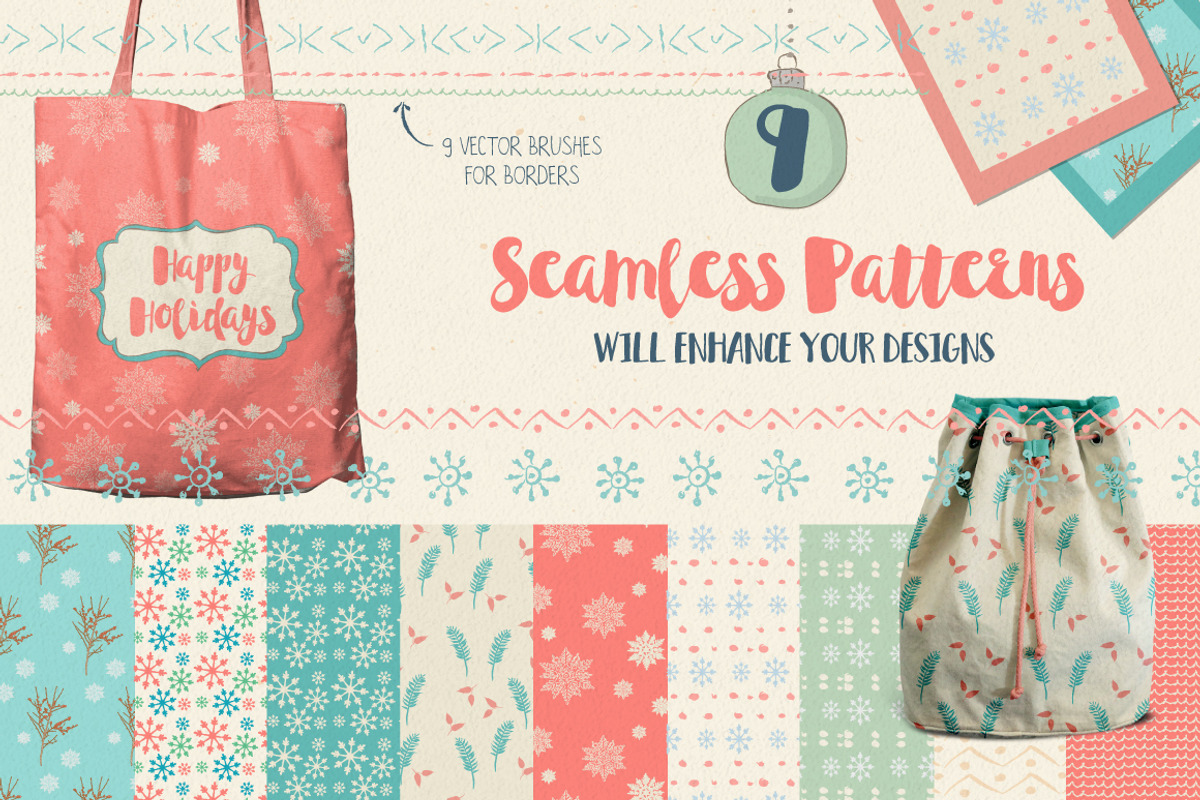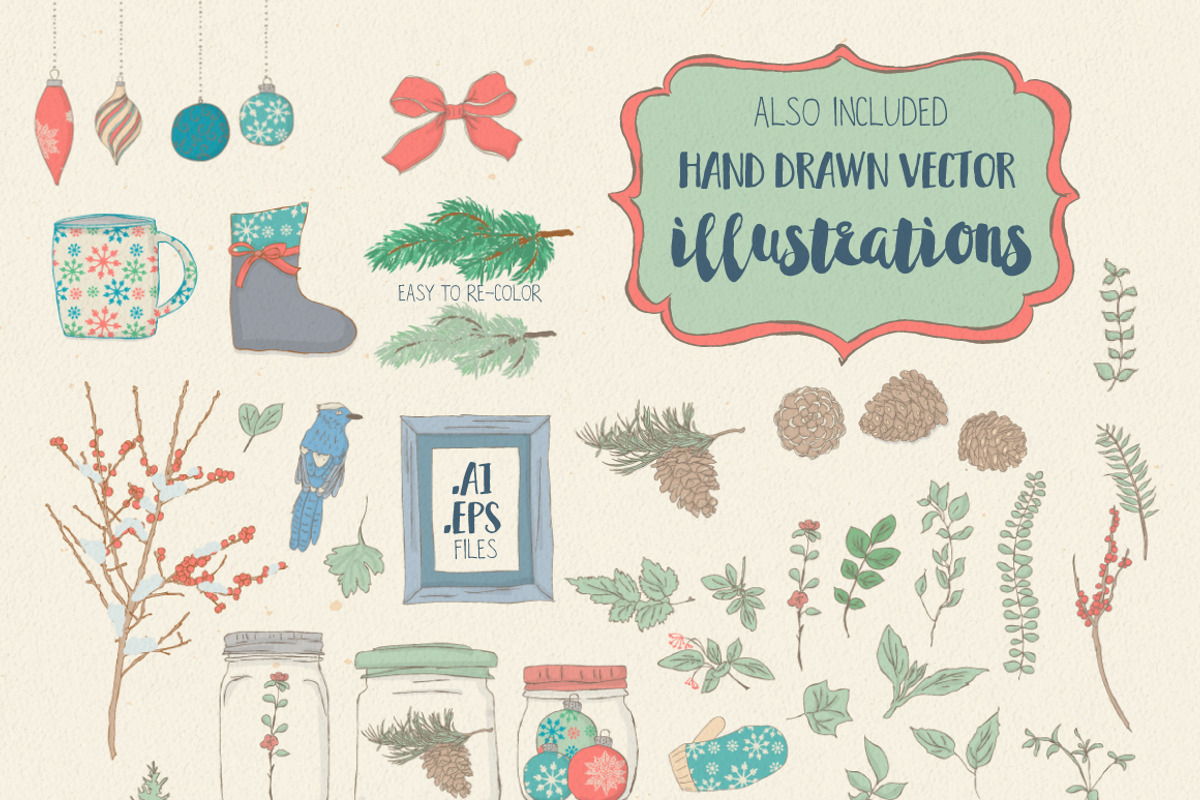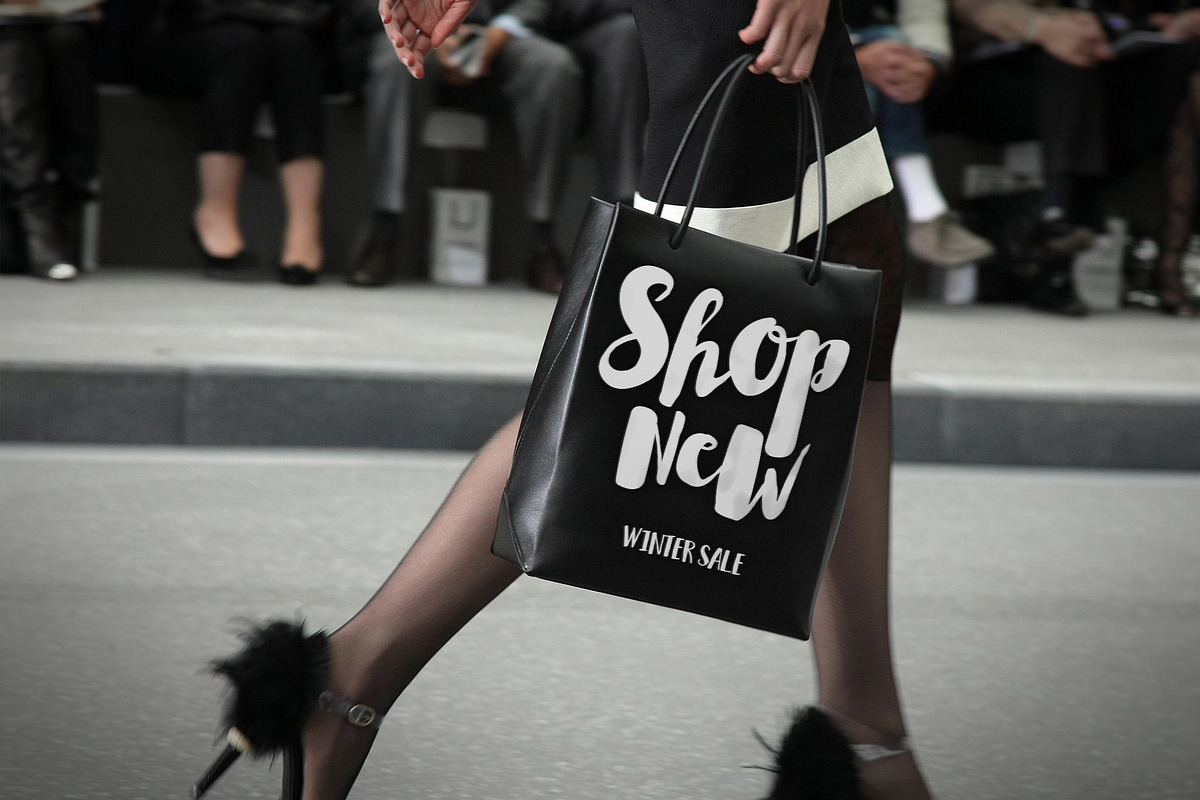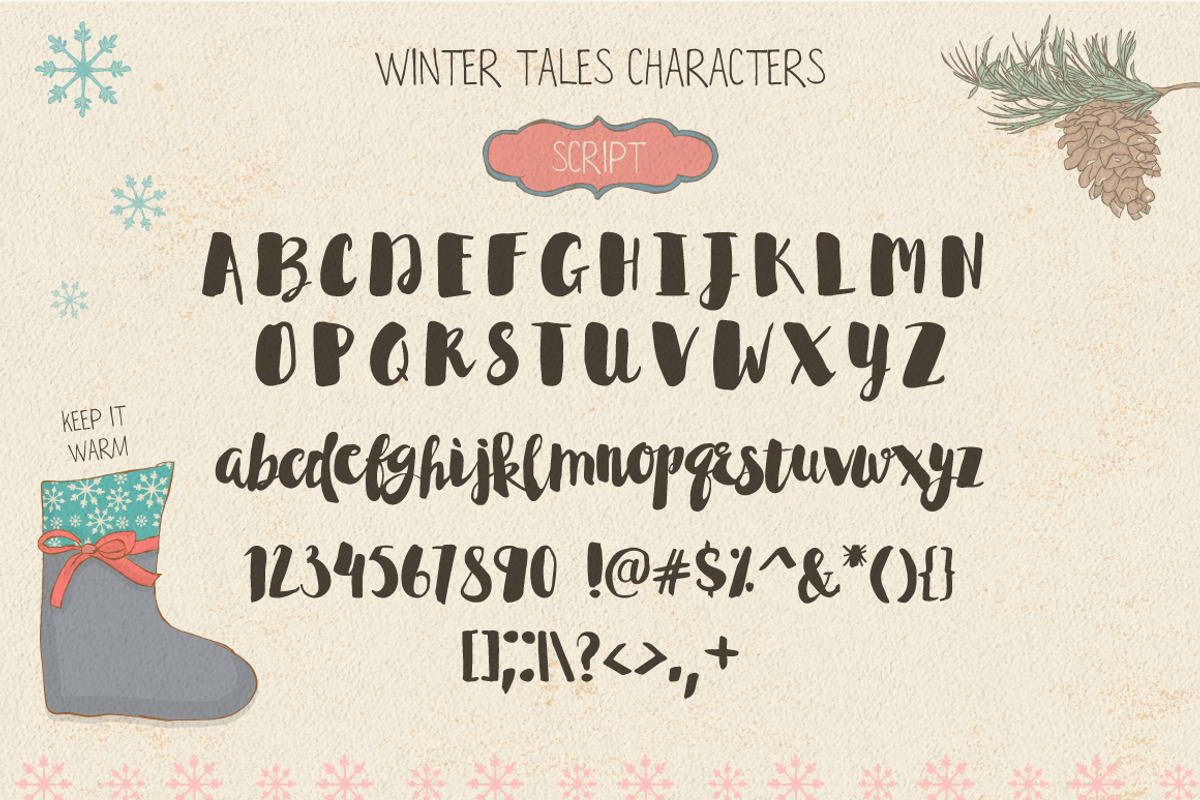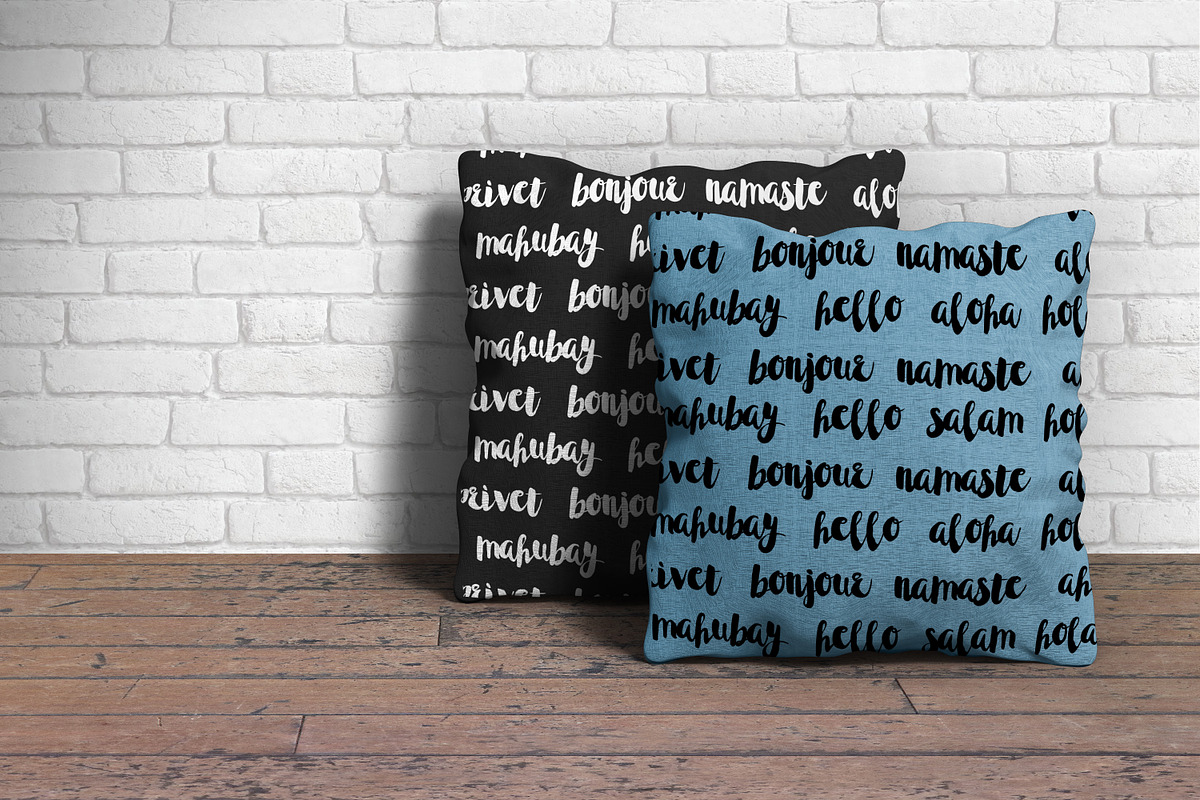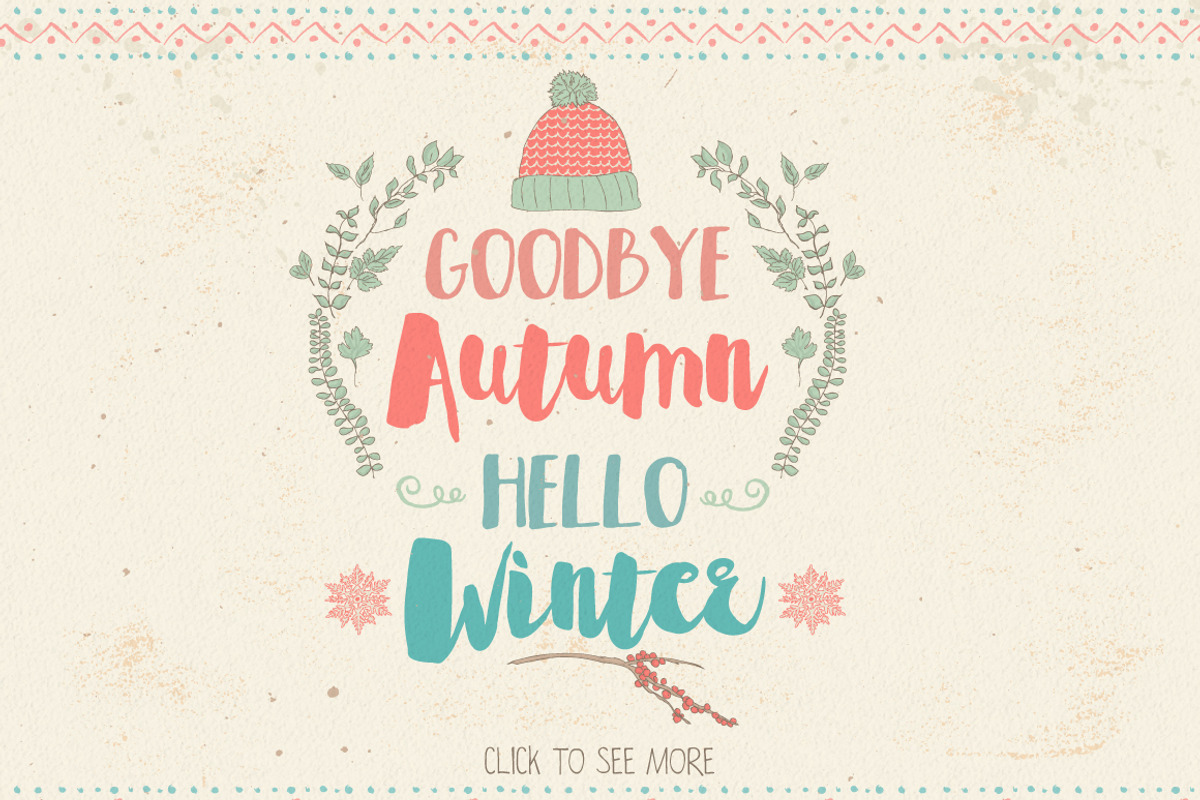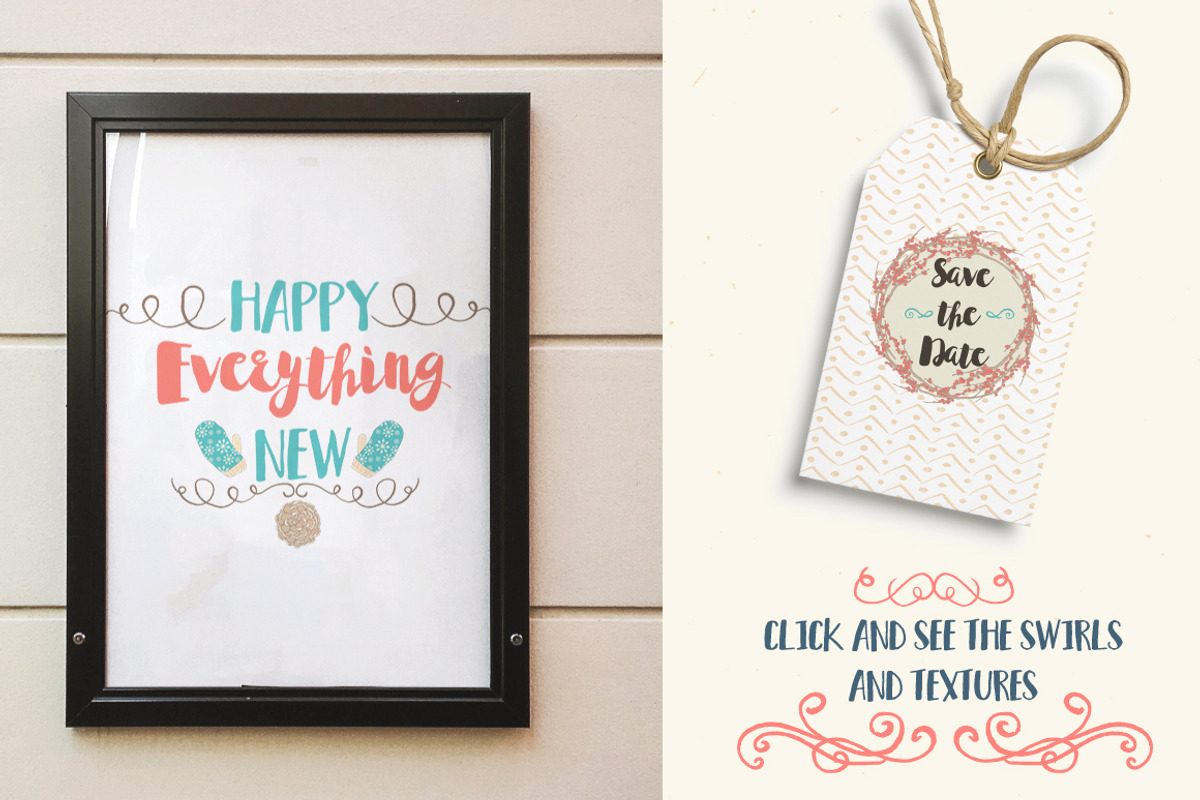
Winter Tales Font Trio + extras
Winter Tales Font Trio + extras by Anna Ivanir is a font selected for branding, posters, packaging, typography.
- For even more fun there are lots of hand drawn vector illustrations, seamless patterns, swirls and textures included.
- Fonts included in this family: Script font - hand painted calligraphy with brush pen organic typeface Sans Serif Regular - hand written uppe
Why Winter Tales Font Trio + extras is worth a look
Winter Tales Font Trio + extras by Anna Ivanir fits naturally into Branding, posters, packaging, typography.